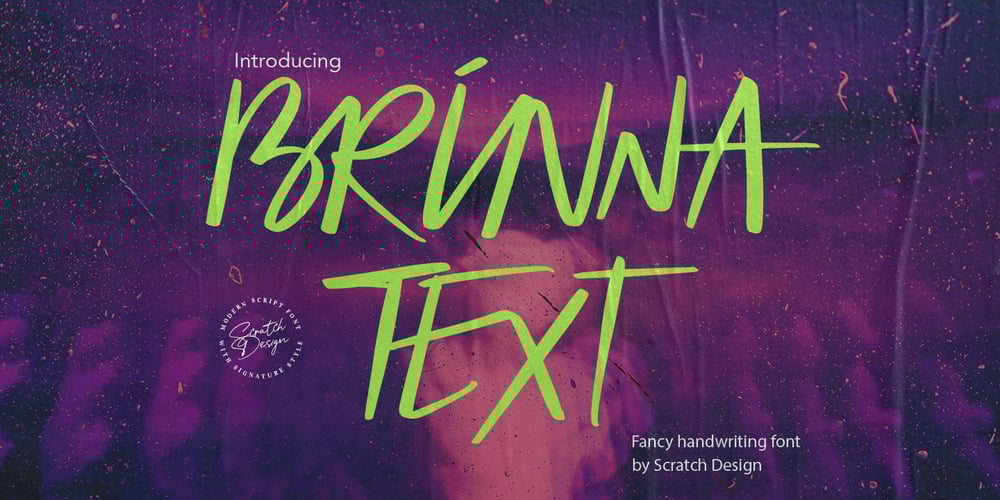
BRINNA Text
BRINNA Text font
BRINNA Text Font Family was designed by Gitayogi Irhandi and published by Scratch Design. BRINNA Text contains 1 styles and family package options. BRINNA Text is an expressive font with small-sized brushes, which features all caps. It has alternates that are cast in lowercase and alternate letters, which are encoded for capital letters. In addition, this font also comes with many ligatures, numbers, punctuation marks and multi-languages support. This font can be used for design purposes that require handwritten style fonts, headlines, branding, stationery, posters, banners, websites or other designs that are dynamic and fancy. To fully access the font’s features, we recommend using programs that support OpenType features.Enjoy this fun and expressive font!